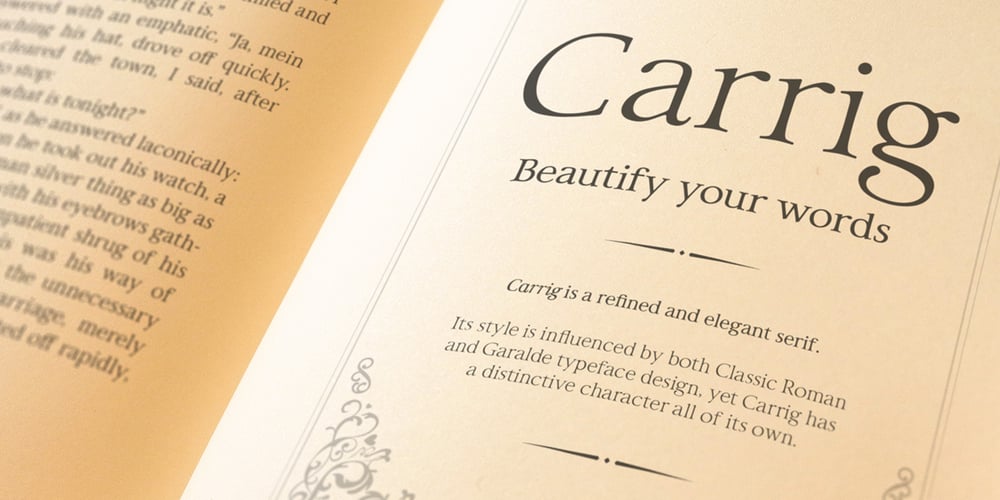
Carrig
Carrig font
Carrig Font Family was designed by Paulo Goode and published by Monotype. Carrig contains 5 styles and family package options. IMPORTANT – Please consider the superior Carrig Pro before making a purchase decision. Carrig started its life in 1998. I was working for a design agency in Cork, Ireland and was given a new brand identity project for a lakeside hotel in County Kerry. While visiting the hotel I made various sketches of the surroundings and upon returning to the studio, it was clear that my strongest ideas for the identity would be based on these freehand drawings. I wanted a classic, rough, hand-drawn typeface to complement this style but at that time, the studio didn’t have anything suitable, so I decided to draw my own. I found a Trajan-esque typeface that I really liked the look of in an old calligraphy workbook. I set about drawing my own version and then digitised it. Once the client had seen and approved my design, I began working on creating a complete all caps typeface to use for the hotel’s stationery. With ‘carrig’ being the Gaelic word for ‘rock’, my new typeface was all the more appropriate as it had the appearance of letterforms that had been carved into stone and weathered by time. With the project completed and the client happy, Carrig then sat in my unused fonts folder for several years… but there was always a nagging feeling at the back of my mind that I should do something more with it. So, in the autumn of 2014, I finally set about doing just that and created the font family you now find at MyFonts. Carrig’s form and structure was influenced by a hybrid of Classic Roman and Garalde typeface designs. The original calligraphic elements from the 1998 version of Carrig have been retained to add personality—as can be seen in the serifs, strokes, spurs, terminals and open bowls. Perhaps its most distinctive trait is a high x-height combined with relatively short ascenders. I wanted Carrig to immediately resonate with the reader and have designed it to be familiar and friendly. I imagine designers might choose Carrig as an alternative to such typefaces as Trajan, Garamond and Baskerville. I see Carrig as primarily a display typeface for titles/headlines in printed materials. I would also love to see it being used for branding, packaging and promotional material and am keen to hear from designers who use it in their own work.